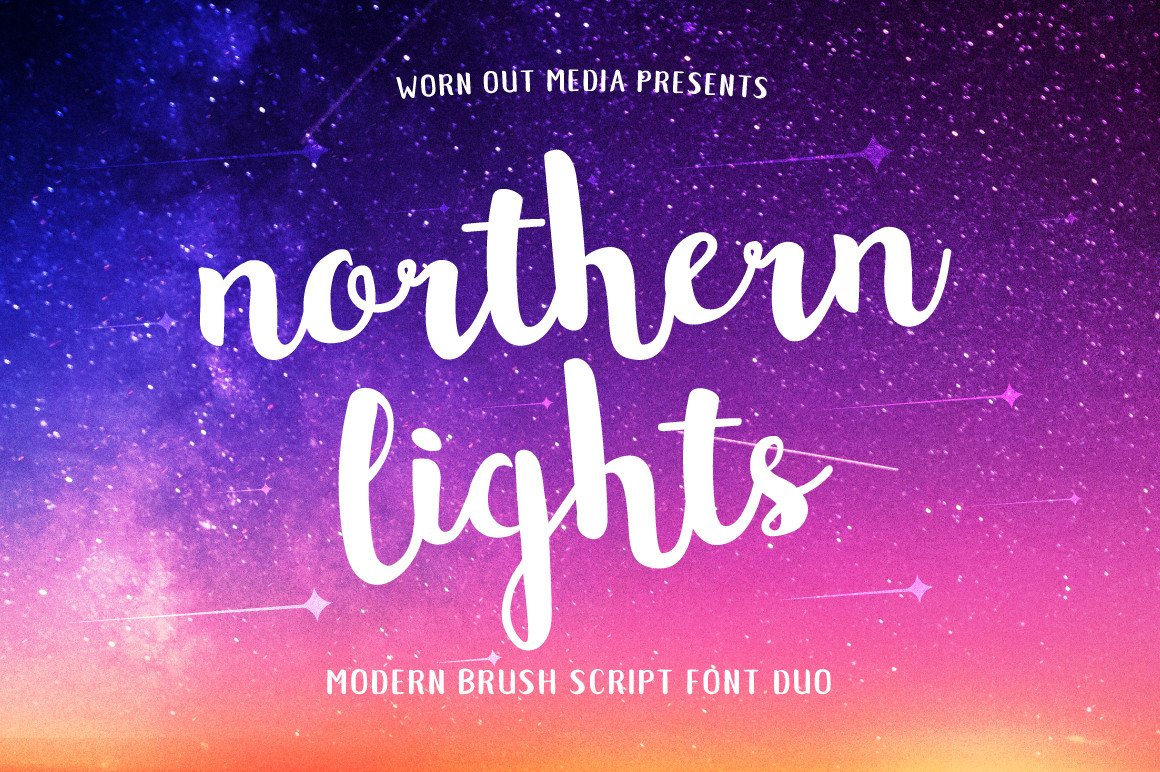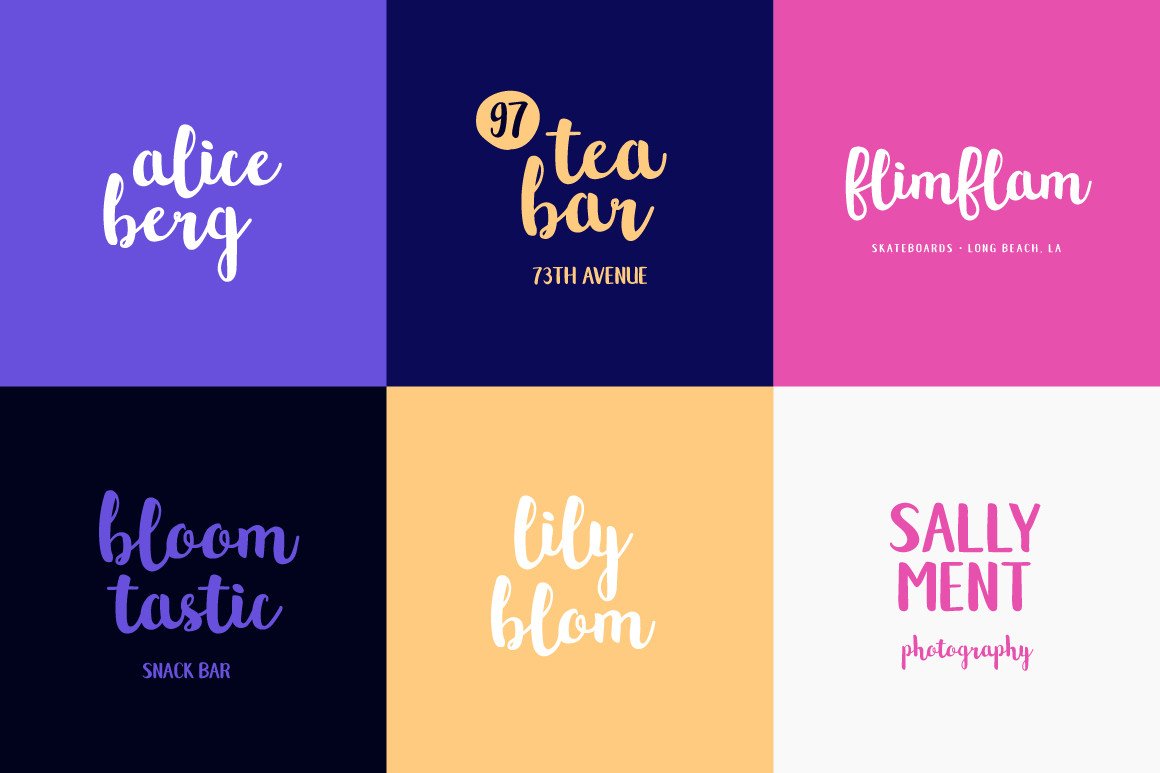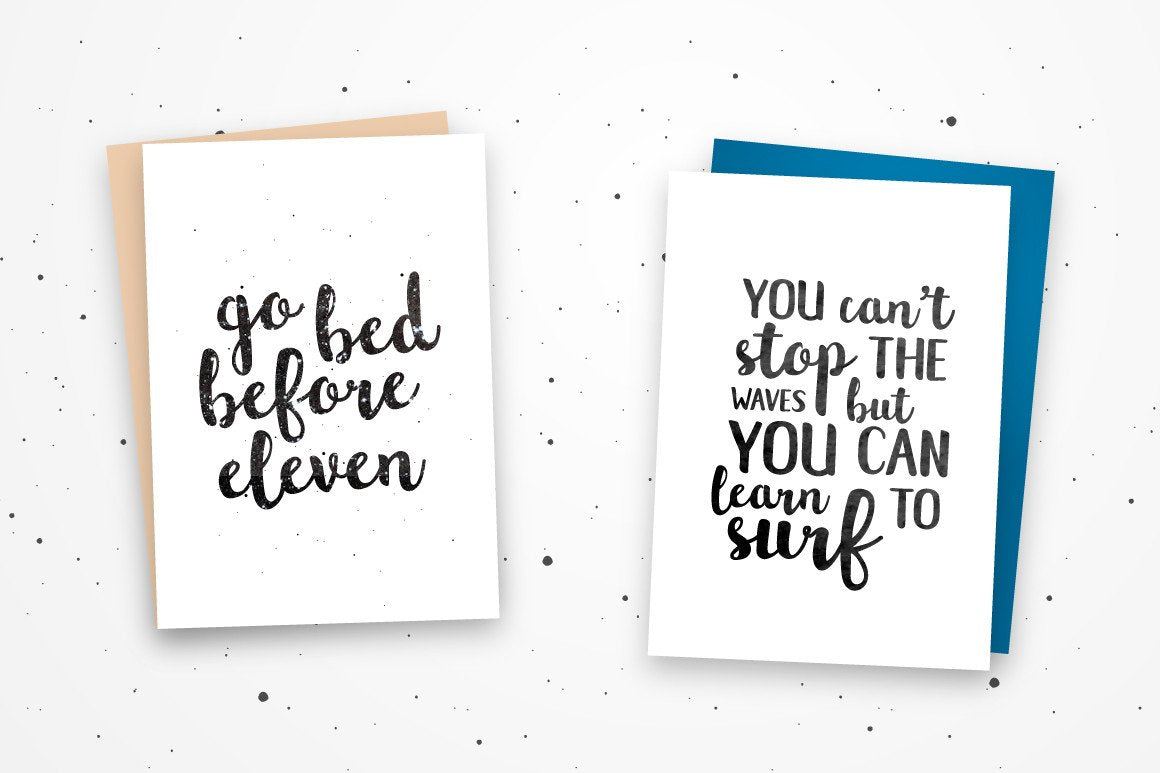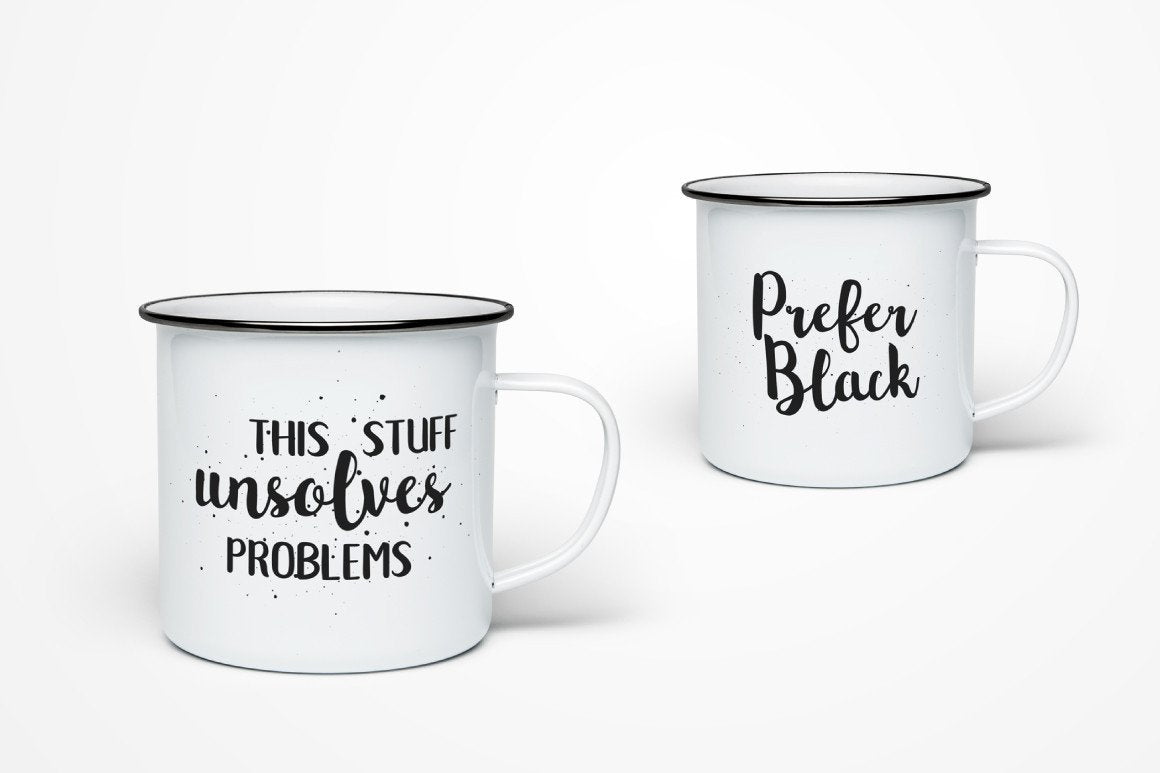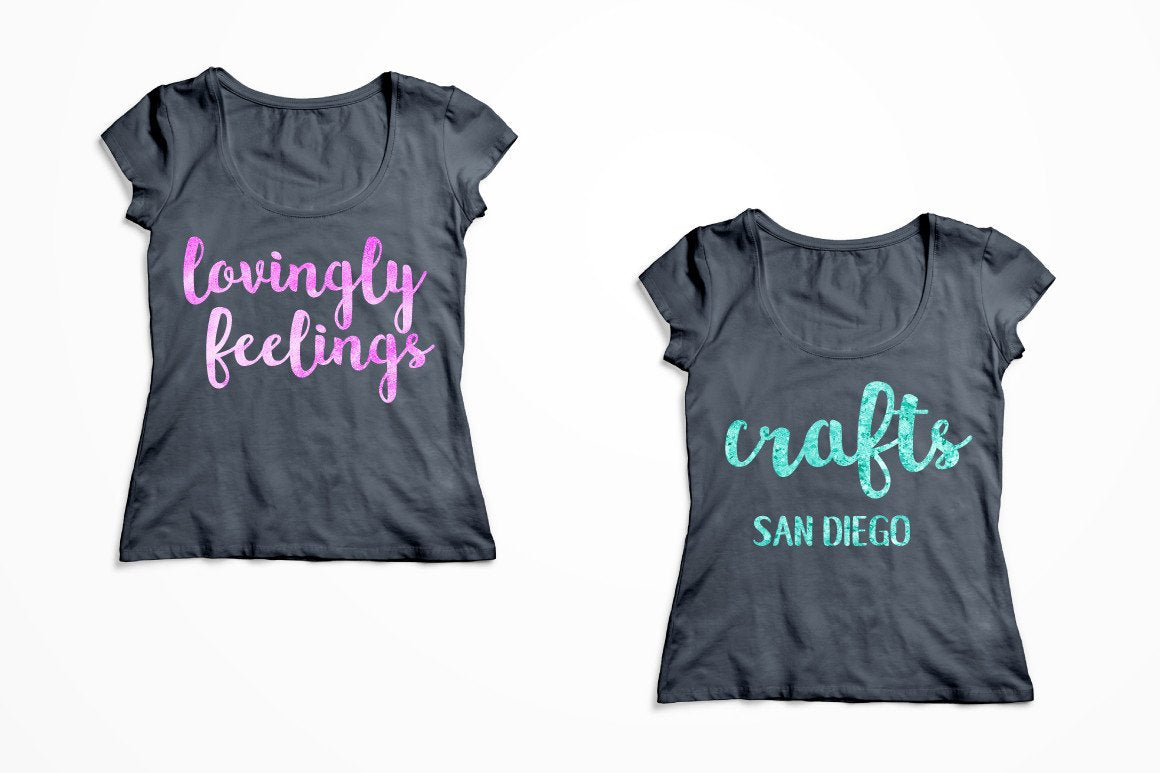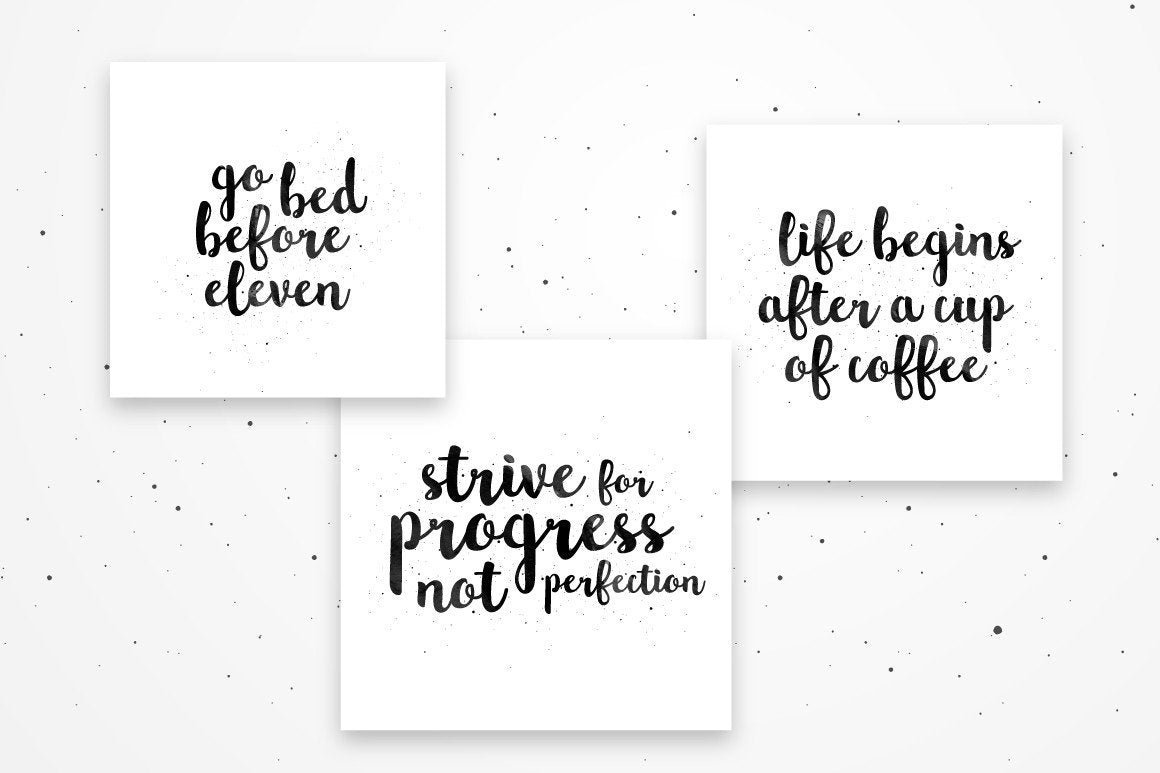
Northern Lights Font Duo
Few weeks ago I decided to take a leap and create my first font! I walked to a nearby crafts store in my hometown and bought a bunch handwriting pencils. After practicing a while I came up with a brush script style that seemed perfect enough to start turning it into a digital font. I tweaked it in Illustrator and then put it through Glyphs App to space and kern it perfectly. I also added caps version to this font to be used with the script. I hope you like it :)